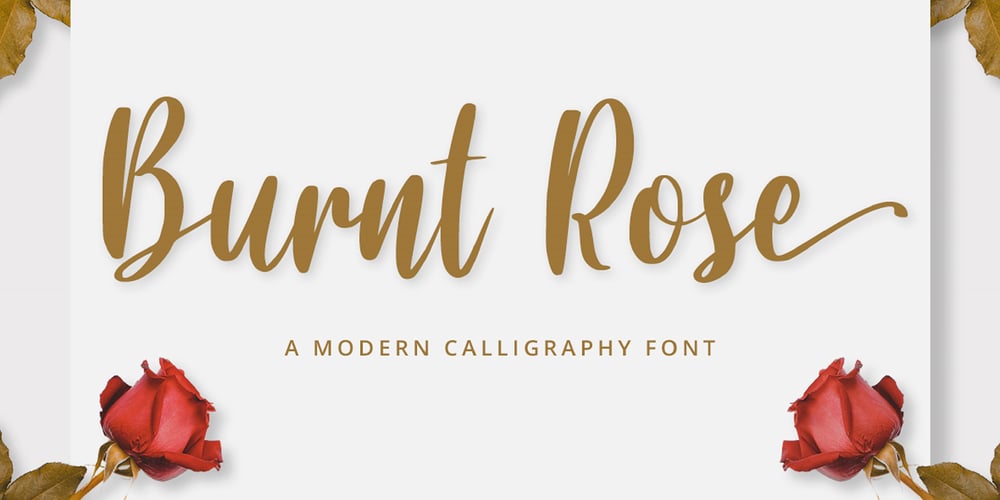
Burnt Rose Font Family was designed by Heri Imanudin and published by Krafted. Burnt Rose contains 1 styles and family package options. Want to transport your audience to a world of wonder with your branding? Want your headings to spark happiness and engagement? Introducing Burnt Rose – A Modern Calligraphy Font. A modern and elegant handcrafted calligraphy font that’ll make your audience swoon and enhance your branding projects, printed materials, and website design. Every stroke and curve was created to capture the essence of elegance and style. Ideal for social media banners; posts, and ads, printed quotes, t-shirt designs, packaging, or even as a modern text overlay to any background image. Burnt Rose includes Ligature & Stylistic Sets as well as Multilingual Support to make your branding globally acceptable. Get ready to engage and captivate your audience with Burnt Rose. What you’ll get: Multilingual & Ligature Support Full sets of Punctuation and Numerals Compatible with: Adobe Suite Microsoft Office KeyNote Pages Software Requirements: The fonts that you’ll receive in the pack are widely supported by most software. In order to get the full functionality of the selection of standard ligatures (custom created letters) in the script font, any software that can read OpenType fonts will work. We hope you enjoy this font and that it makes your branding sparkle! Feel free to reach out to us if you’d like more information or if you have any concerns.